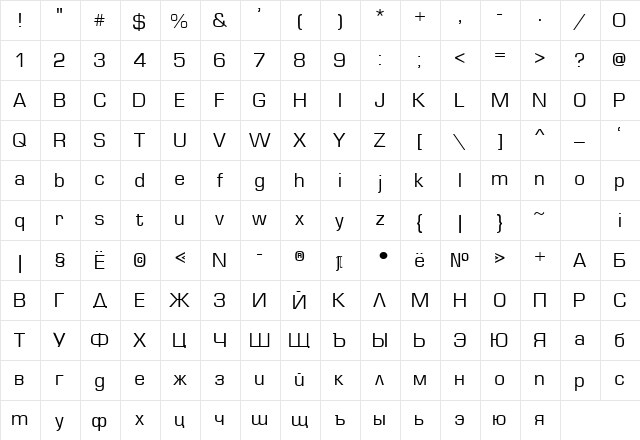
EuroStyleDiai Regular
Design Context for EuroStyleDiai Typeface
EuroStyleDiai offers clean, dependable letterforms without strong stylistic allegiance, making it a practical choice for designers who need flexibility.